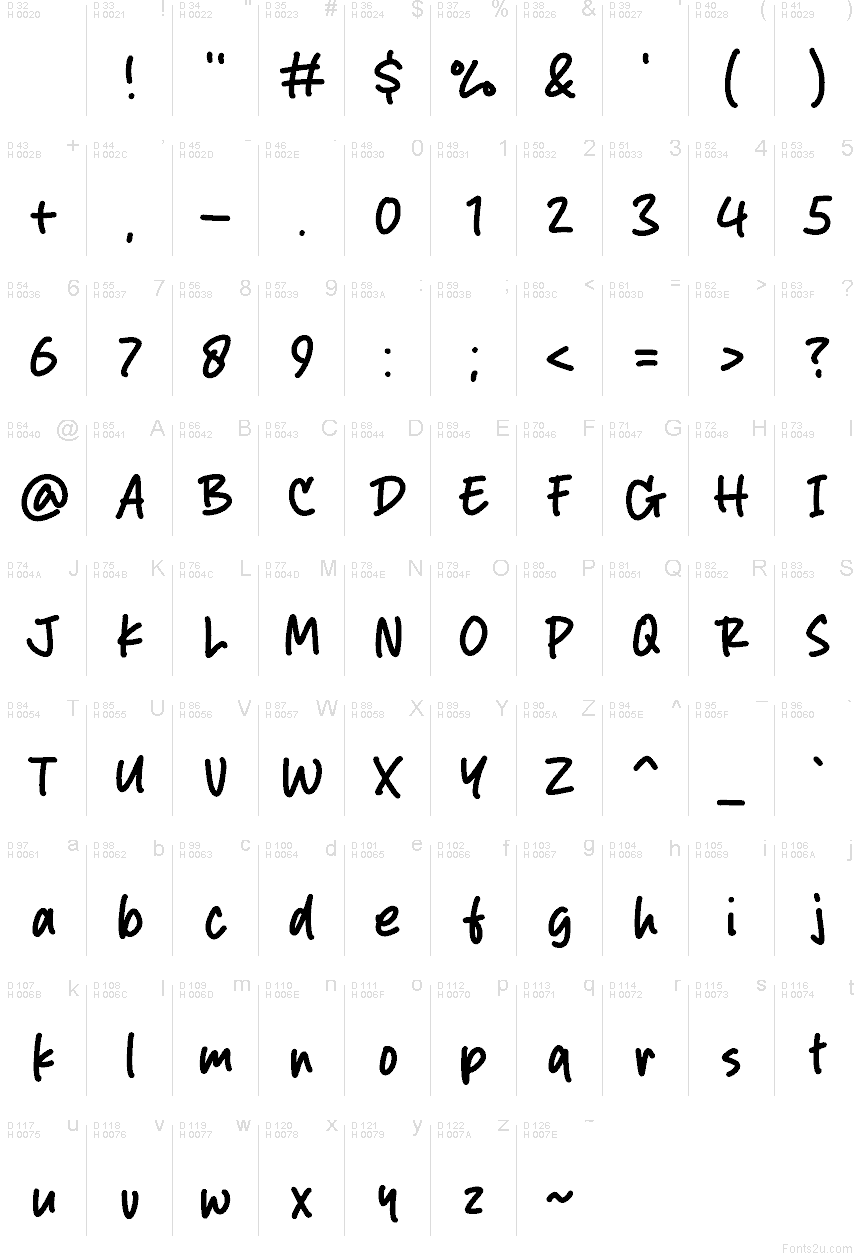
Secret Crush
Secret Crush font by MJType is a free handwritten typeface that feels like a note scribbled in the margins of a journal. Its smooth, slightly chunky strokes and rounded curves give every word a friendly, confessional tone, as if someone’s writing with a favorite gel pen on soft paper. Letters connect with an easy rhythm, keeping text legible while still feeling personal and a little bit flirty.
Using Secret Crush, you can add warmth and personality to Instagram posts, digital planners, quote graphics, greeting cards, stickers, and cozy brand identities. This free font shines on pastel backgrounds, textured paper mockups, and playful packaging. For a clean, modern contrast, pair it with a simple geometric sans serif in smaller captions or body text.